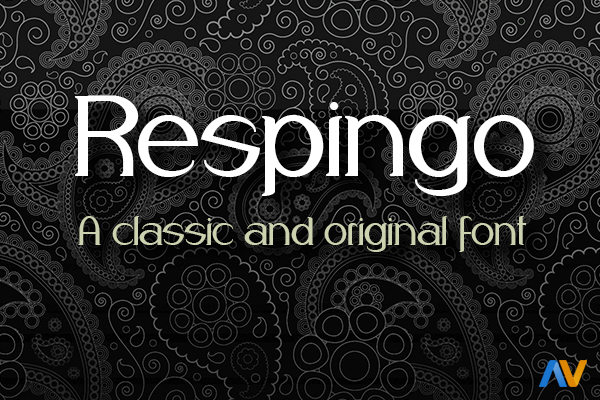
Respingo
A classic and original serif font for your designs. Respingo is a font created by Alberto Villanueva. Added web fonts.
Respingo
By Albertako's fonts